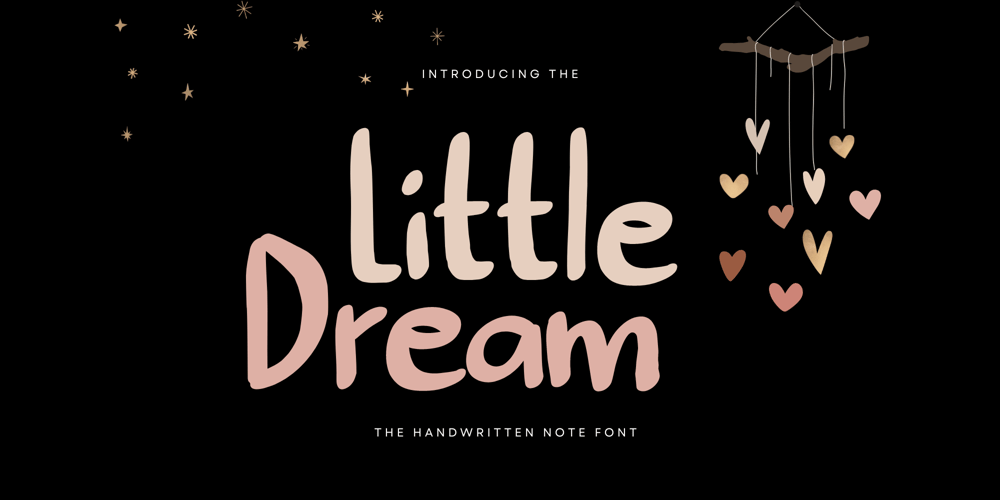
Little Dream Font Family was designed by Muhammad Husni Haikal and published by Graphicfresh. Little Dream contains 1 styles and family package options. Handwritten fonts are really cute, aren’t they? Specially designed to follow the flow of the human hand. This is what makes the text more intimate and human, plus adds warmth. This font is often used for design projects that want to look unique and creative, so that readers feel closer. With a wide variety of styles to choose from, handwritten fonts are perfect for a variety of projects, from wedding invitations to event posters. How about it, funny right?